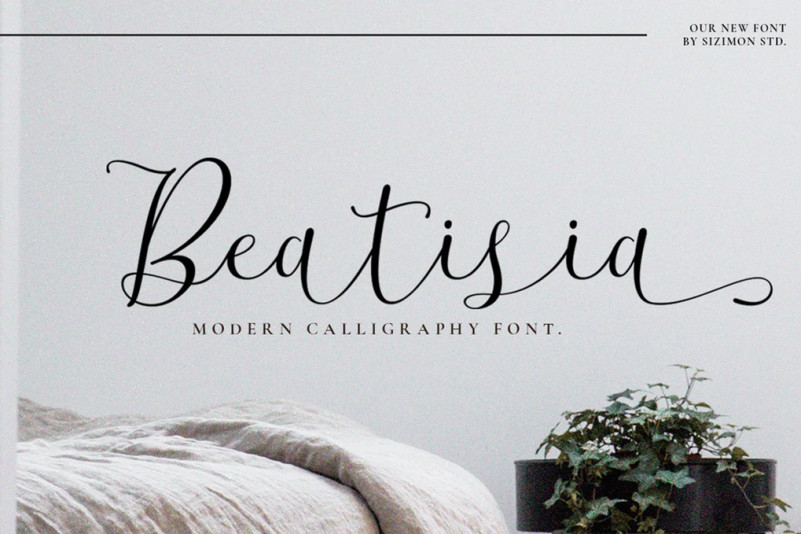
Beatisia Font
Introducing our new product Beatisia Script. It is elegant, feminine, fashionable and friendly. Beatisia is perfect for fashion, e-commerce brands, trend blogs, or any business that wants to appear casual and chic.